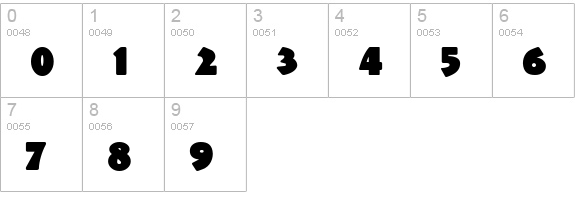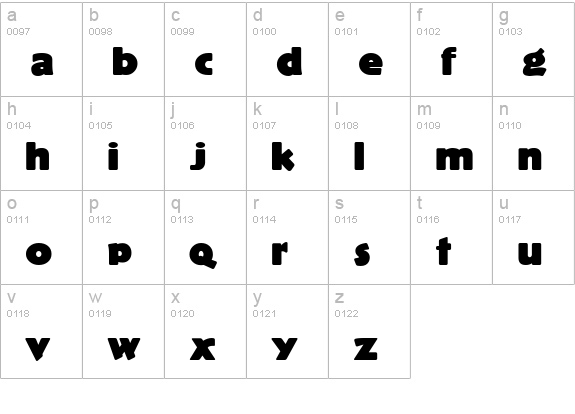
Pub Smooth Font Details
Introducing Pub Smooth font, a delightful and versatile typeface that exudes charm and elegance. This font effortlessly blends modern sophistication with a touch of classic flair, making it perfect for a wide range of design projects. With its smooth and rounded letterforms, Pub Smooth font is sure to captivate and inspire your audience. What's even better is that Pub Smooth font is available for free download at FontsMarket.com. This means you can easily access this stunning font and use it in your creative endeavors without any hassle. Whether you're working on branding, print materials, web design, or any other project, Pub Smooth font is a fantastic choice that will elevate your work to the next level. Don't miss out on the opportunity to enhance your designs with the beauty and versatility of Pub Smooth font. Download it for free today at FontsMarket.com and let your creativity shine!